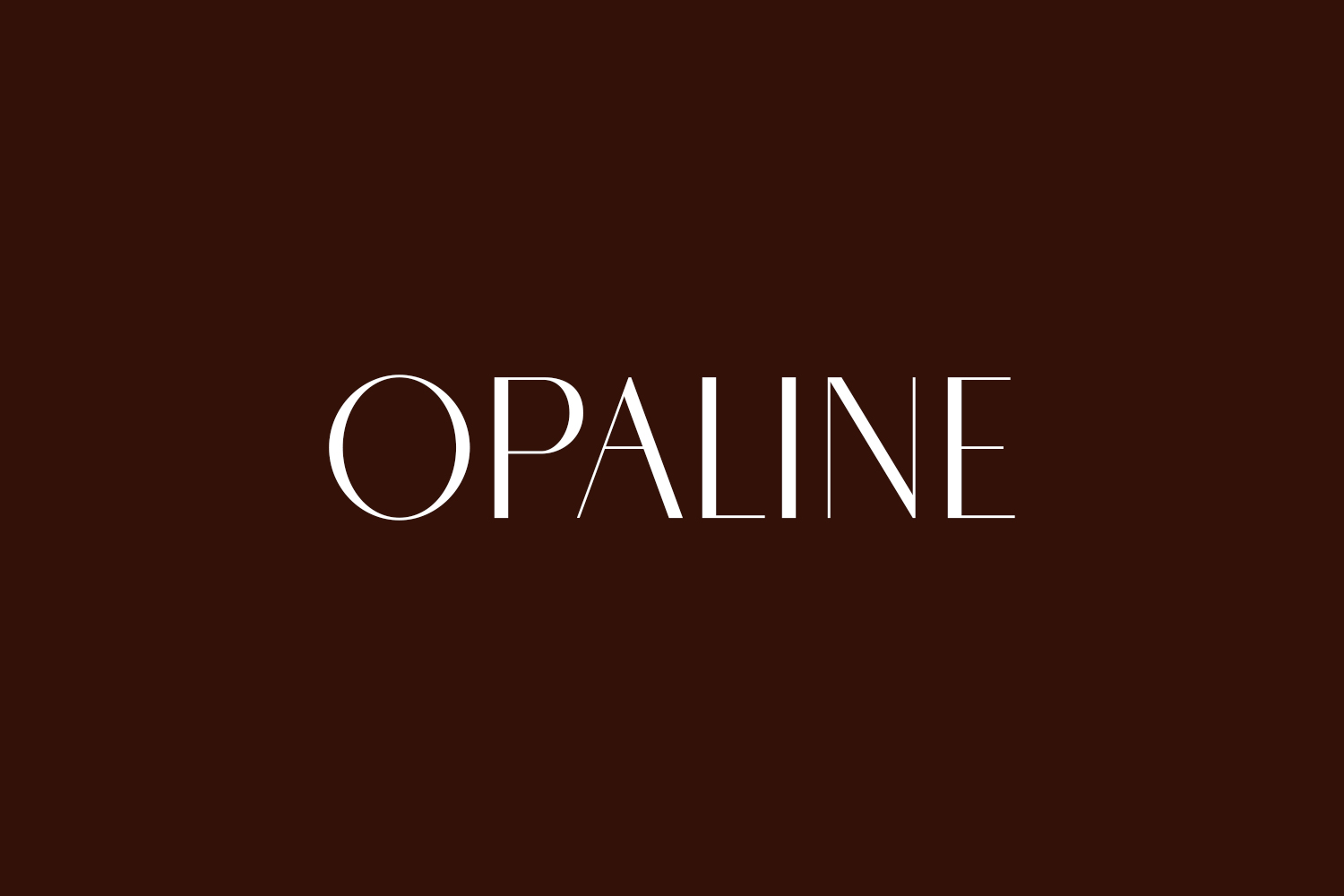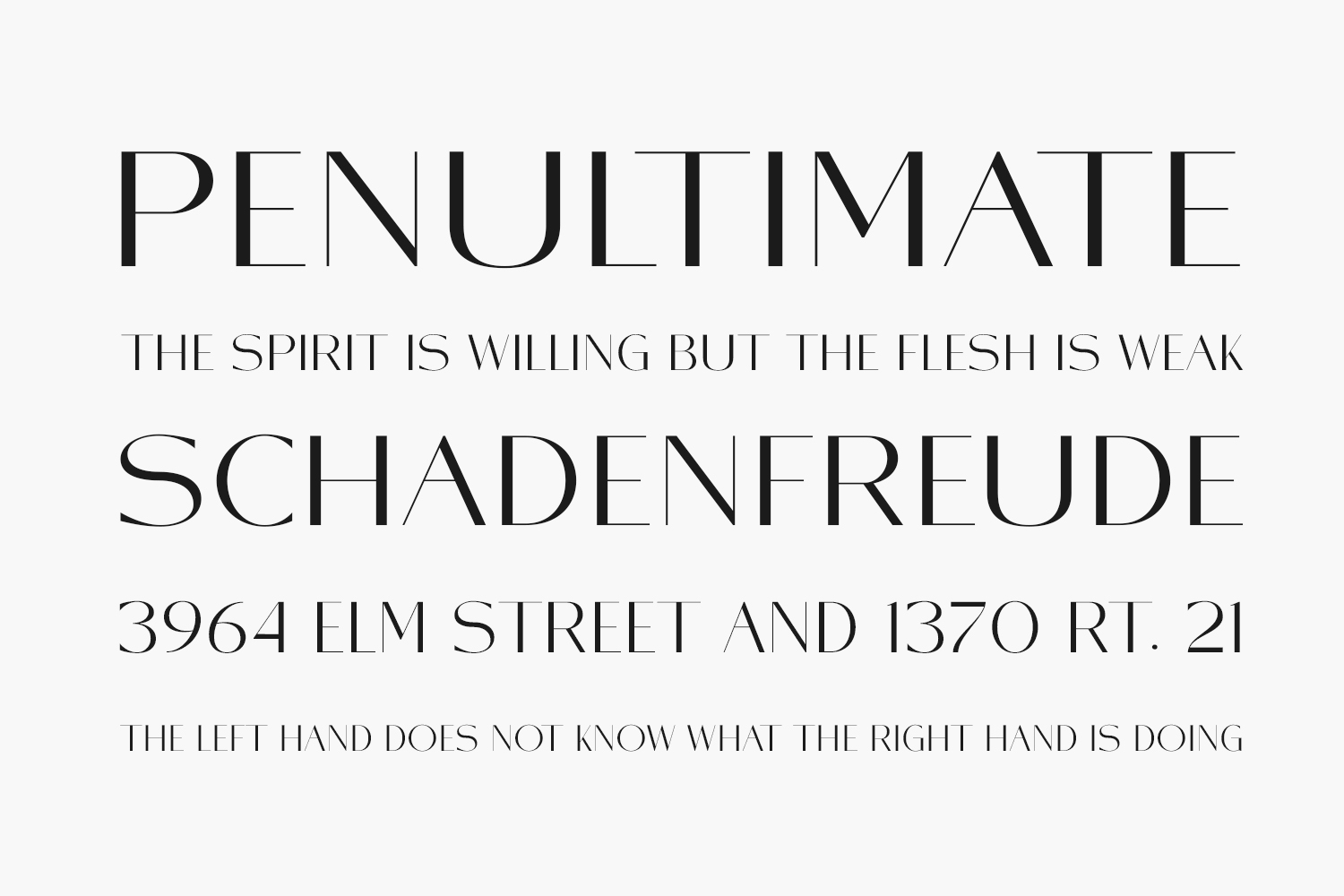
Discover Opaline Free Font, an exquisite and contemporary sans serif typeface designed to elevate both fashion and high culture domains. This font exudes sophistication and versatility, making it perfect for headers and editorial applications. With its elegant and high-contrast design, Opaline shines in display usage, headlines, logotypes, labels, and more. Explore the full range of characters in the accompanying screenshot and experience the beauty of Opaline firsthand with the font samples below. Elevate your creative projects with this stylish and modern typeface. Opaline Free Font is free for personal use only. Please purchase the full version for commercial use.